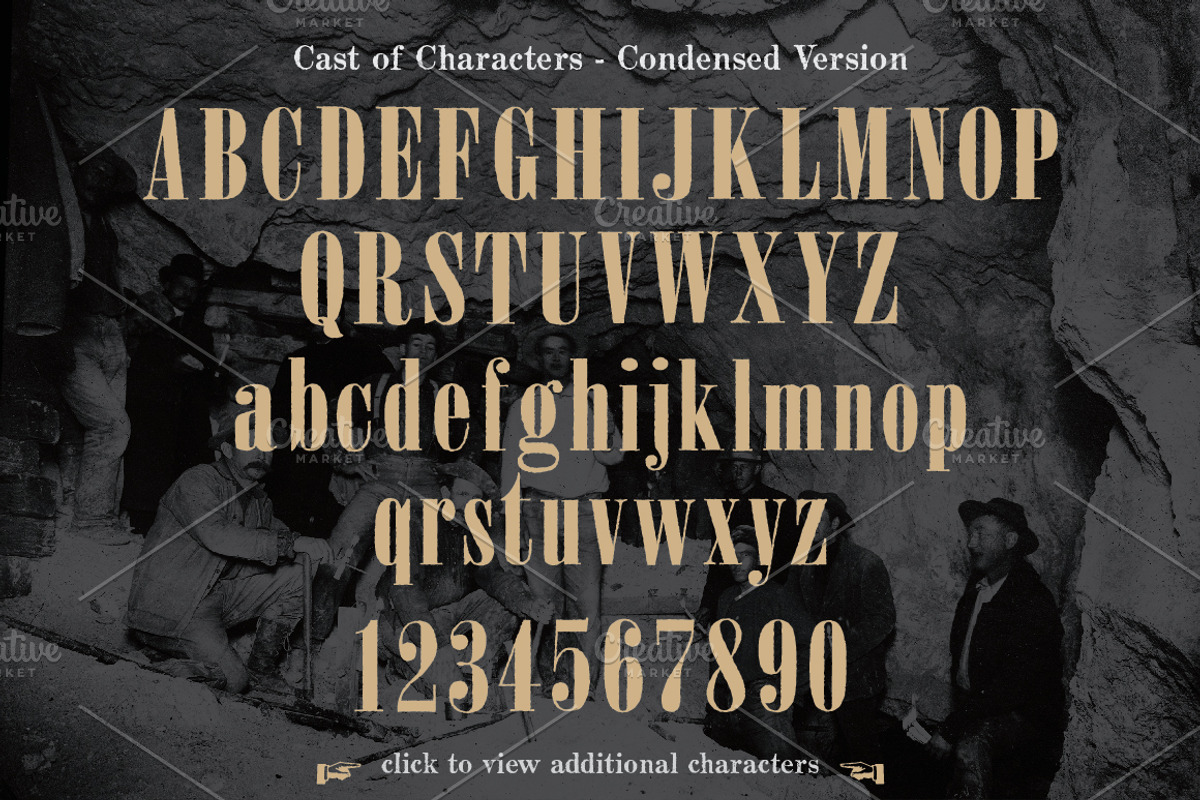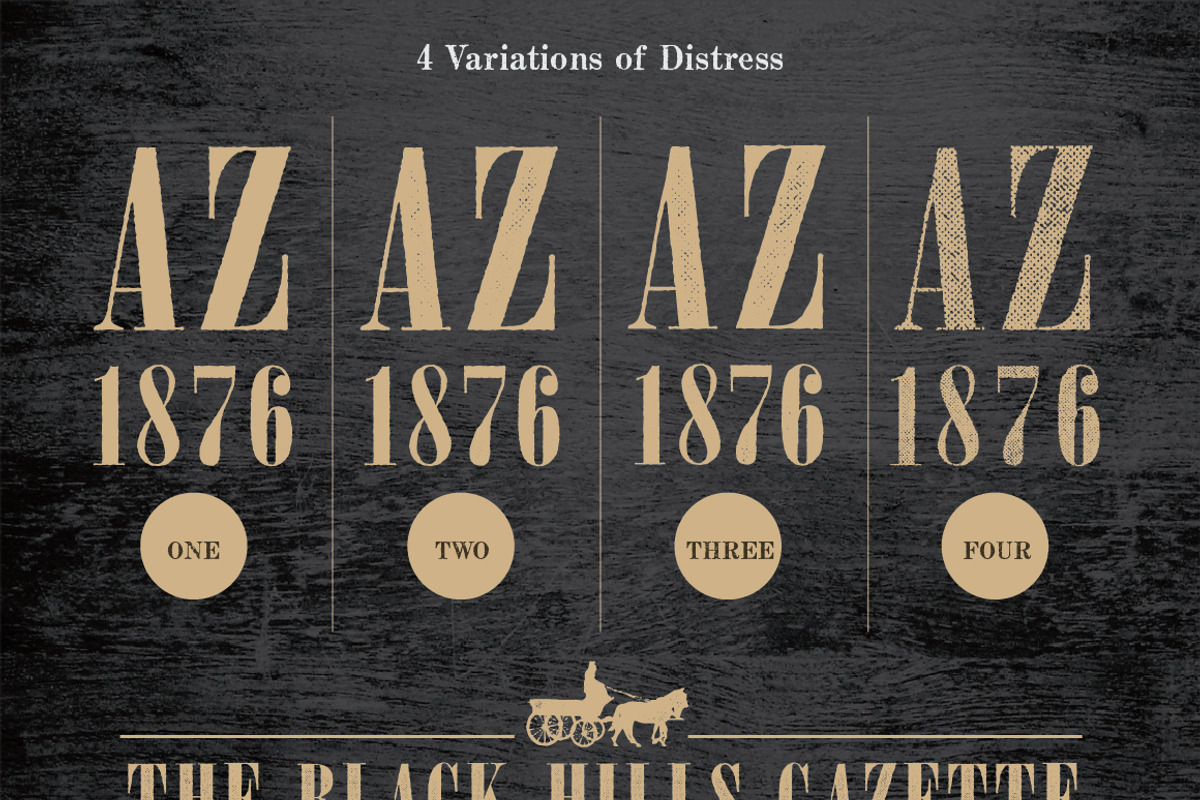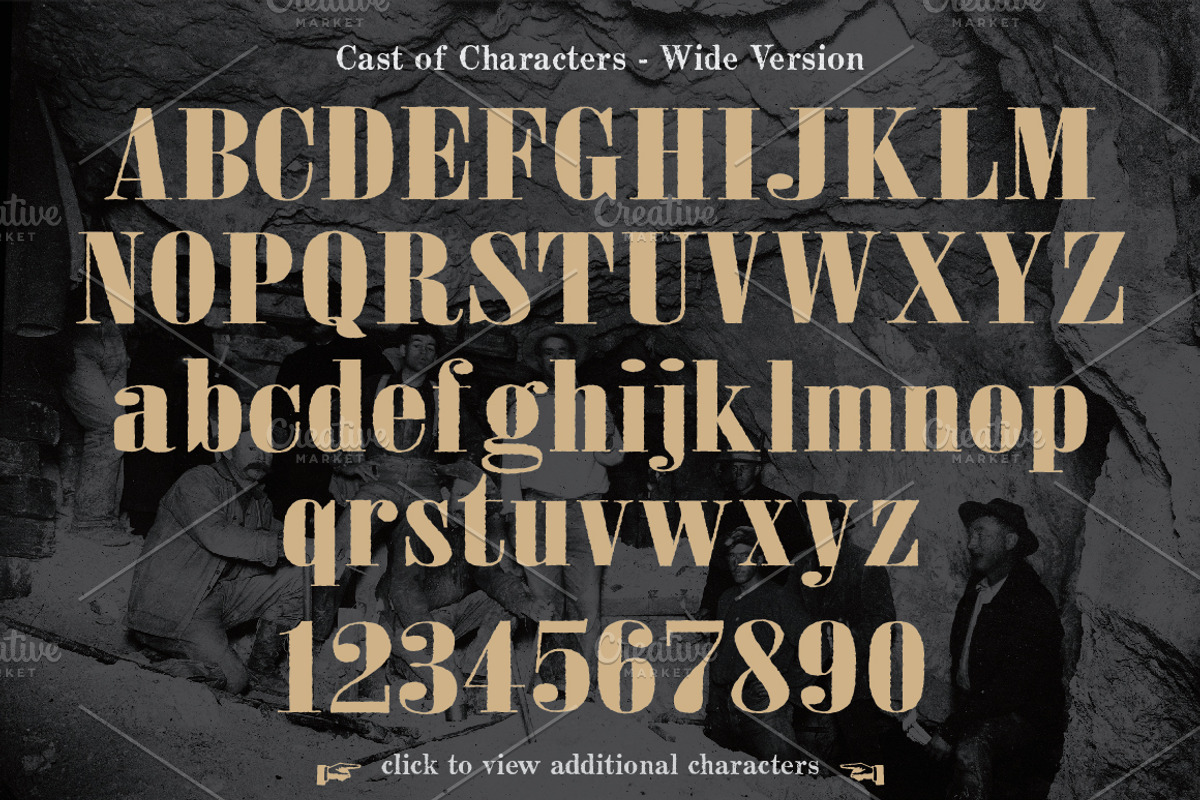
Jerome Vintage Typeface
Jerome Vintage Typeface by K Randall Wilcox is a font selected for branding, posters, packaging, typography.
- A set of matching wide versions of each style is also included.
- Each font has upper and lower case as well as numbers and special characters.
Why Jerome Vintage Typeface is worth a look
Jerome Vintage Typeface by K Randall Wilcox fits naturally into Branding, posters, packaging, typography.